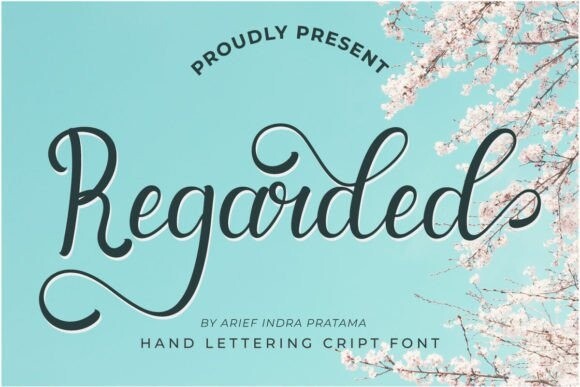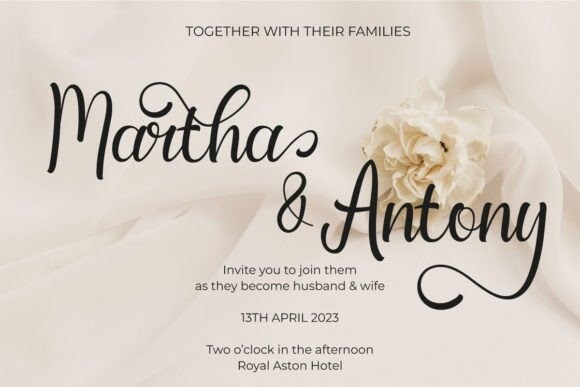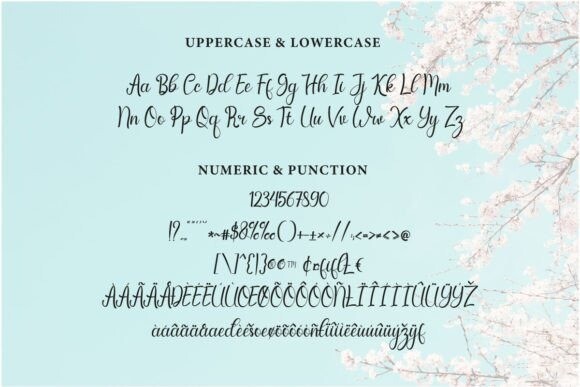
Regarded Font
Regarded Font is a stylish script font. Use it for wall displays, wedding invitations, social media posts, logos, advertisements, product packaging, product designs, labels, photography, watermarks, invitations, stationery, and any project that requires an impressive touch.